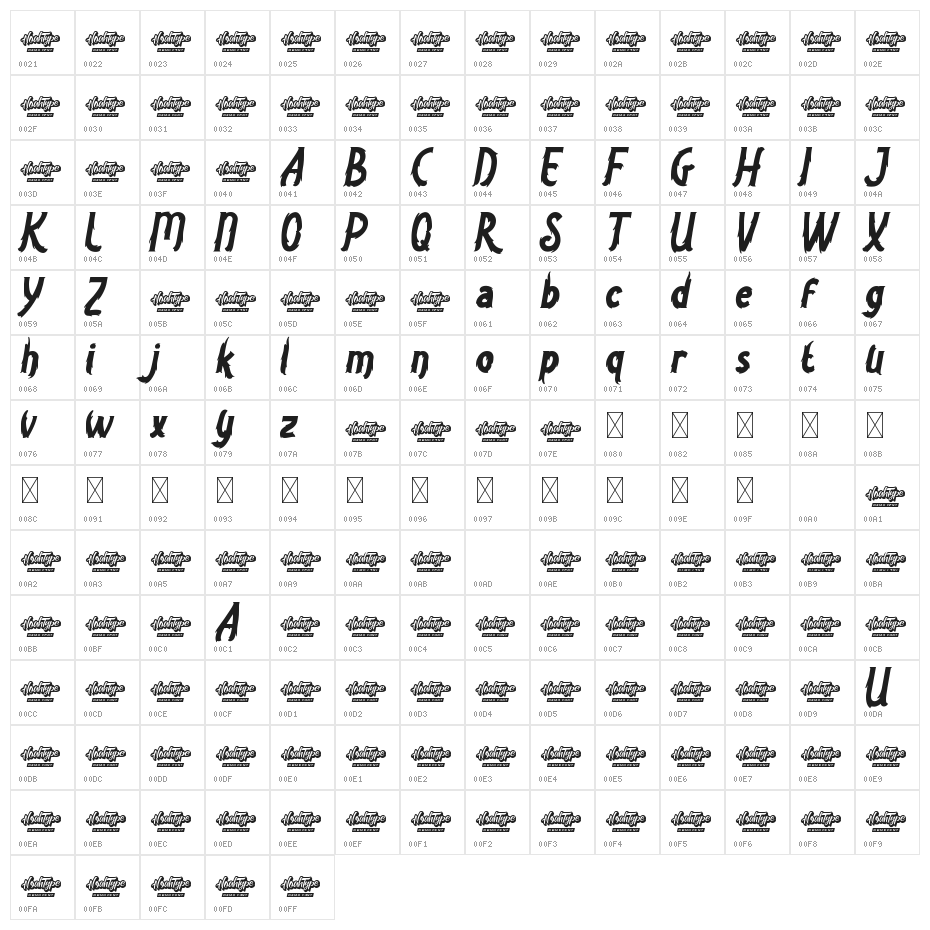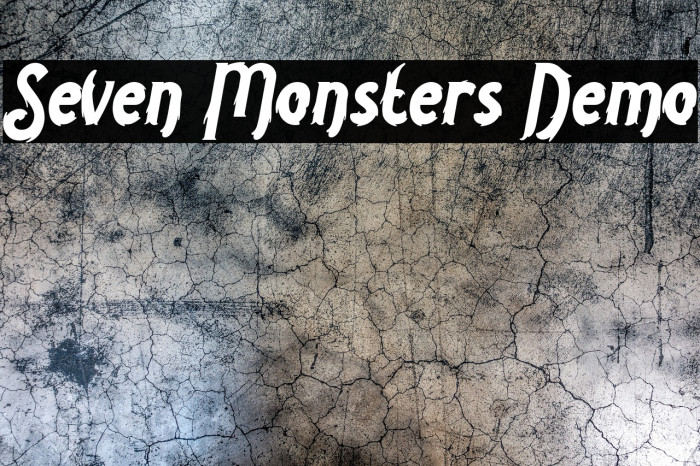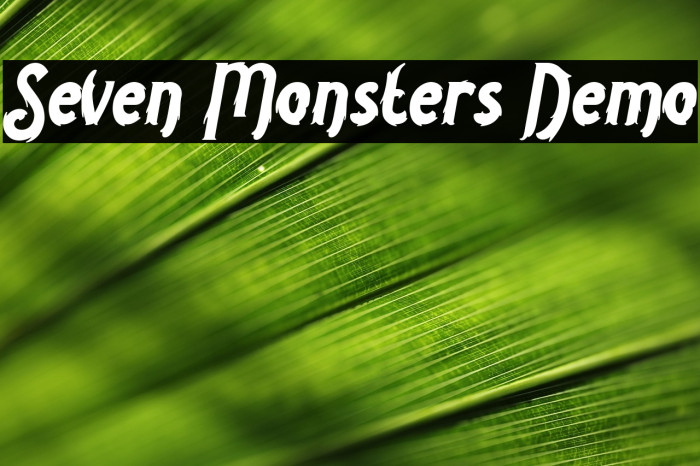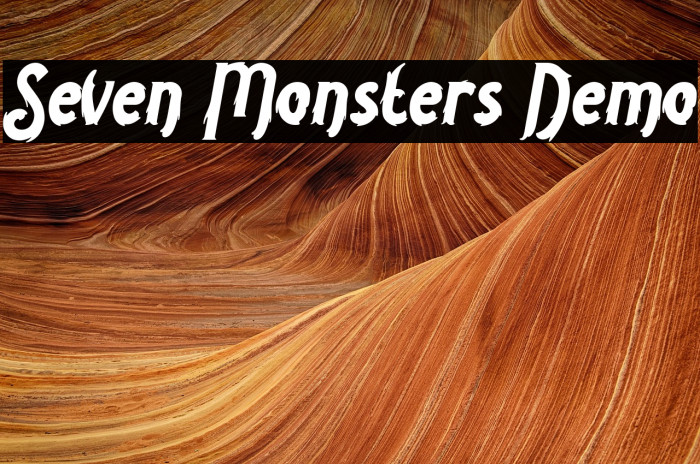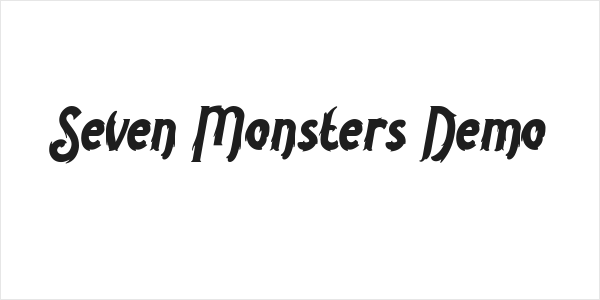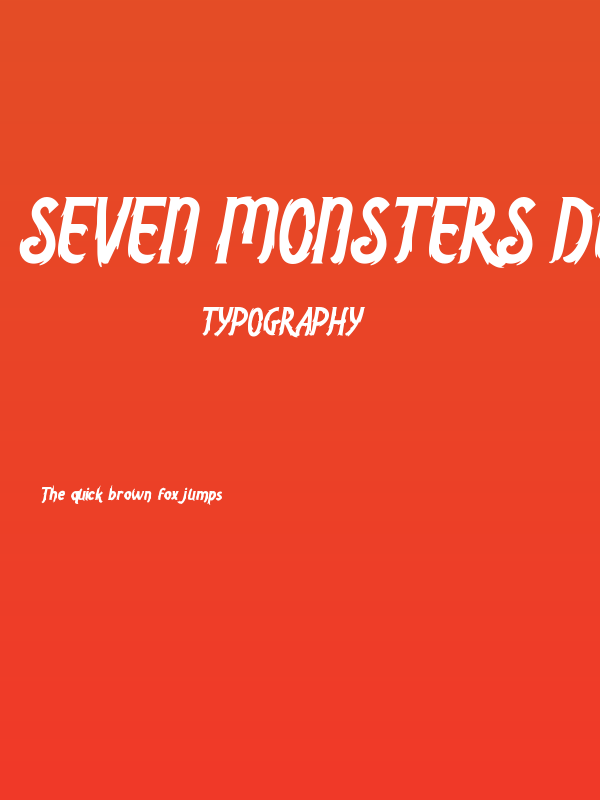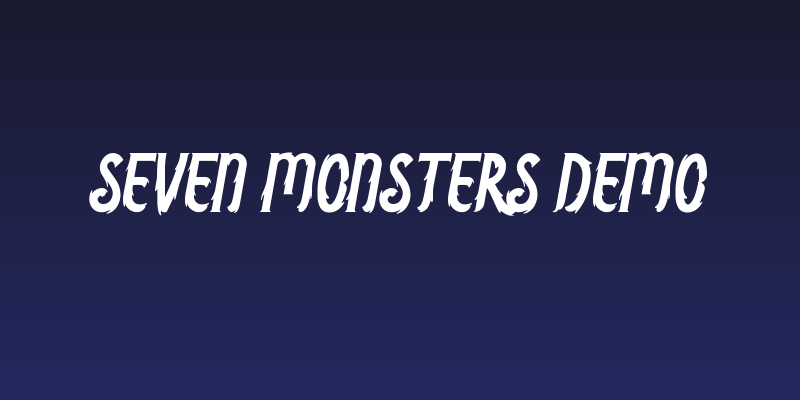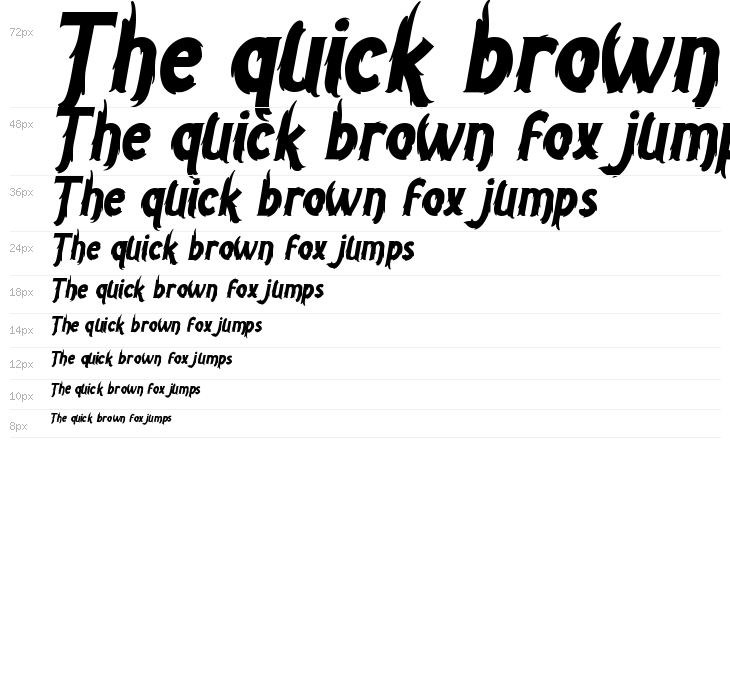
Seven Monsters Demo Font
Seven Monsters Demo Description
This font features a bold and dynamic design with sharp, jagged edges that give it a fierce and energetic appearance. The characters are slightly slanted, adding a sense of movement and urgency. The uppercase and lowercase letters maintain a consistent style, with exaggerated serifs and pointed terminals that enhance its aggressive look. The numbers and special characters follow the same aesthetic, ensuring a cohesive appearance across all glyphs. This font is ideal for projects that require a strong, impactful visual statement.
| Proposed Projects | Perfect for horror-themed designs, edgy branding, posters, and album covers. |